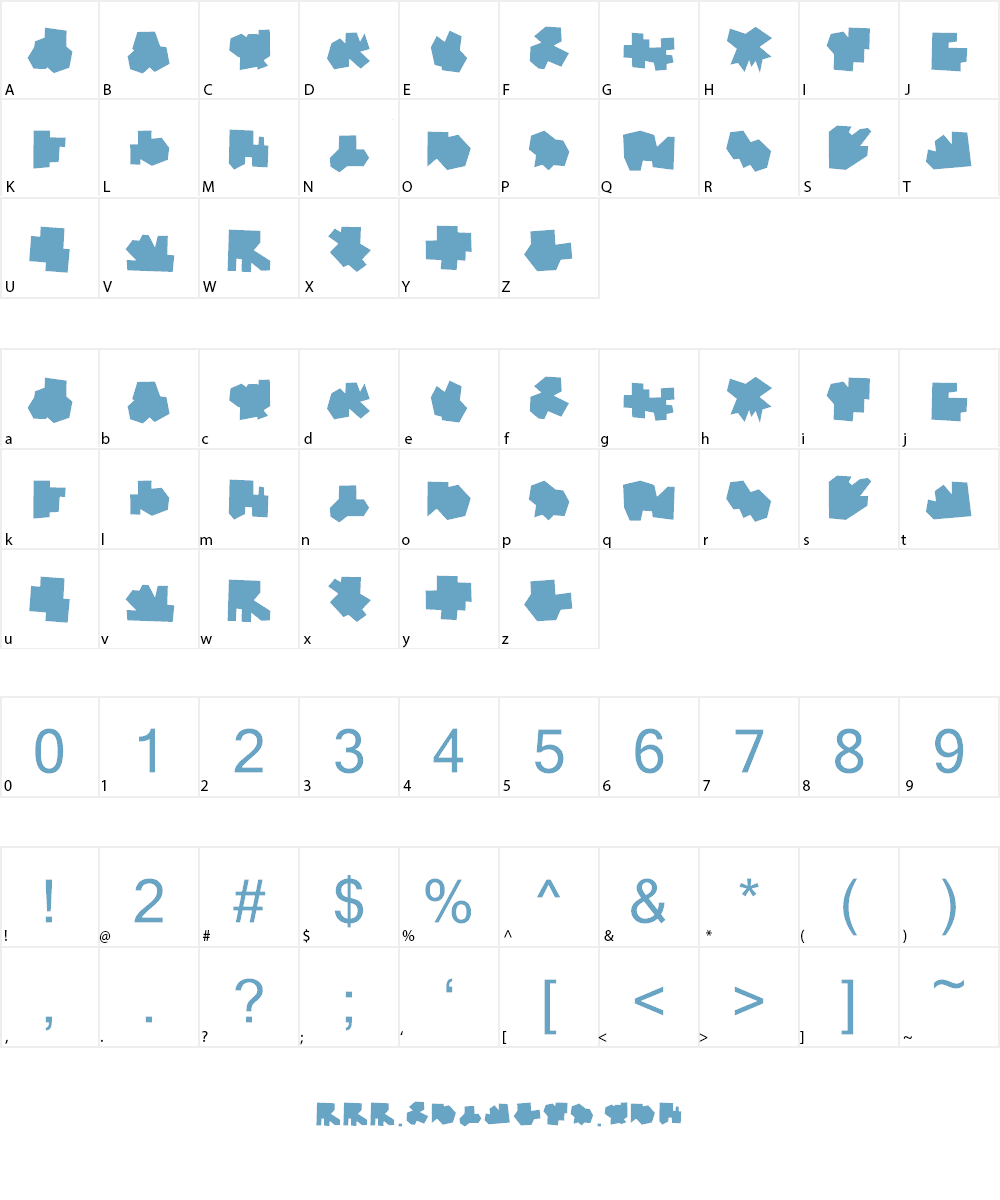
This font is a tribute of KineticPlasma Fonts' CiSF Camouflage Kit and a fan font of Kantai Collection, designed by Heaven Castro @ Heaven Castro Studios.